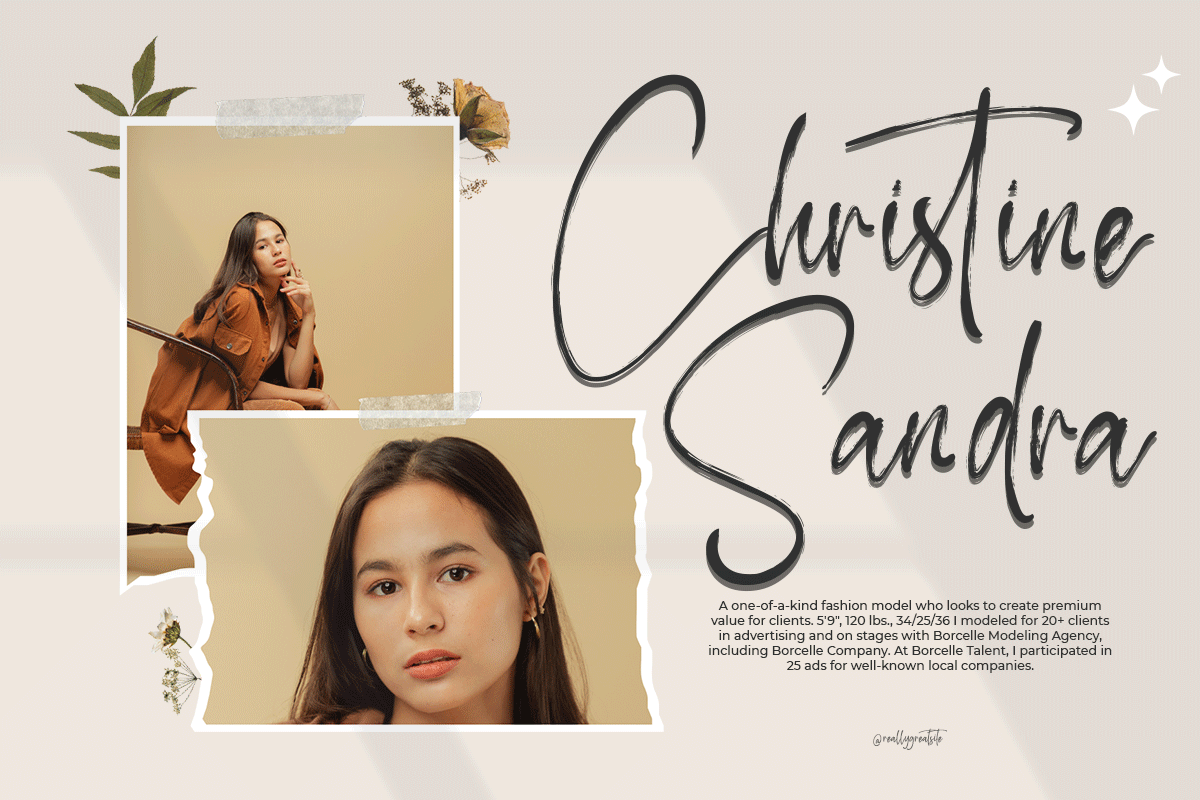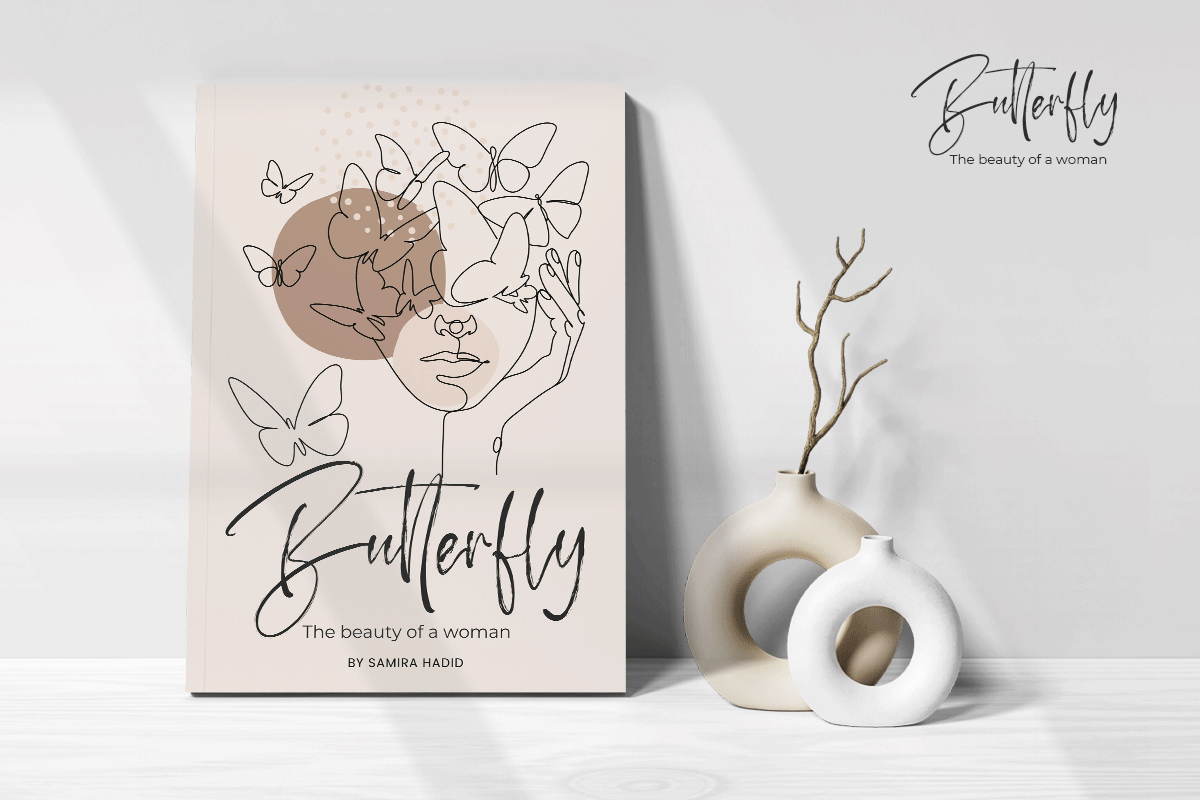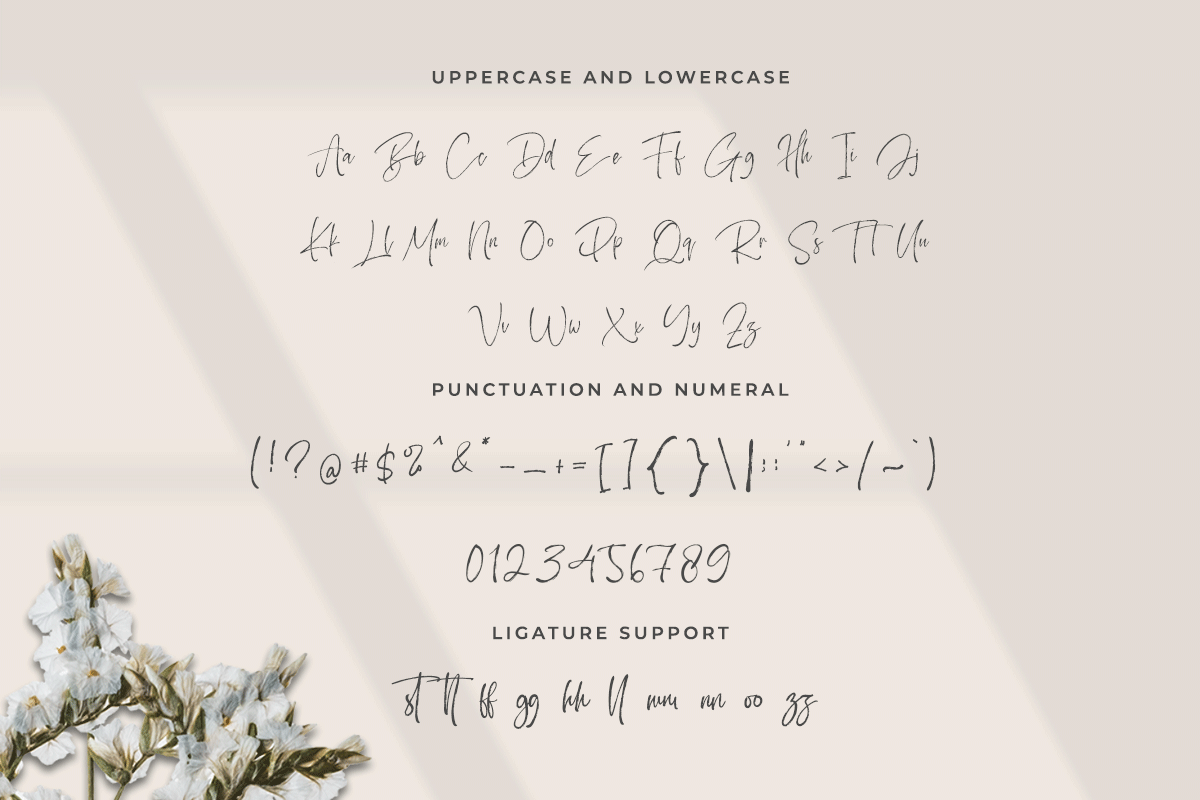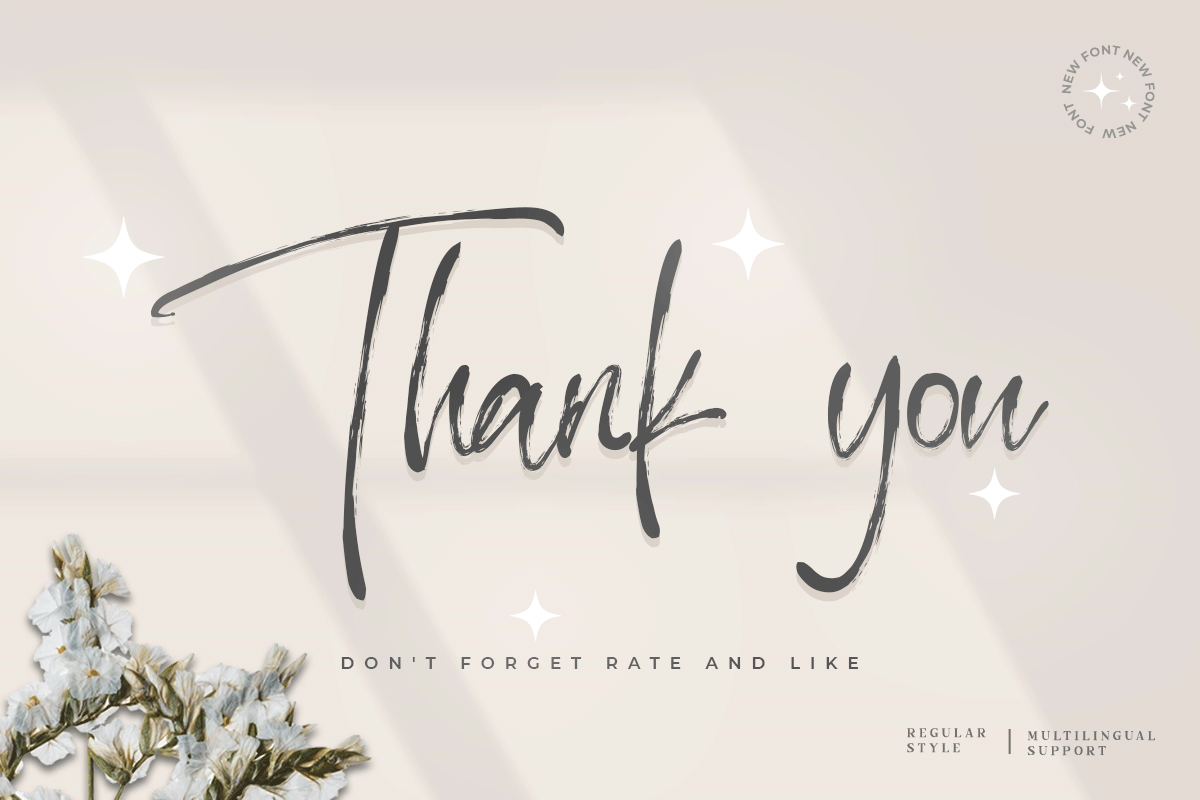
Frazentta Handwritten Brush Font So many font options have been given by brush fonts, one of which is Frazentta Handwritten Brush Font. This font is a good choice if you're looking for a digital font or a print font. You can see how the characteristics of this font are very attractive to the eyes of anyone who reads it. Franzetta is one of the aesthetic fonts that is formed from thin brush strokes. It is created with beautiful curves in some of the letters. If you take a closer look, this font looks like a shadow has the bold side at the end of the shape font. The Frazentta characteristic above is perfect for a formal event that emphasizes beauty. This font is the best font that can be used for wedding fonts such as invitations, souvenirs, and writing on decorations. Frazentta font is also one of the most suitable fonts to be used for product brands that address women's needs such as fashion, and beauty products, and also a shop board. This font can be a digital font or a print font. The Frazentta font is an illegible font. The Frazentta font is made with simplicity, elegance, and a strong aesthetic in whatever goes with it. This impression arises from how clear this font looks and its characteristics. Our collection of font brushes is compatible to use as Figma fonts, Canva fonts, Freepik Fonts, and Adobe Fonts. They also work as Windows Fonts, and Apple Fonts. For your social media needs, you can use and install fonts in our brush typography collection to use as Instagram Fonts, Facebook Fonts, and Twitter Fonts.